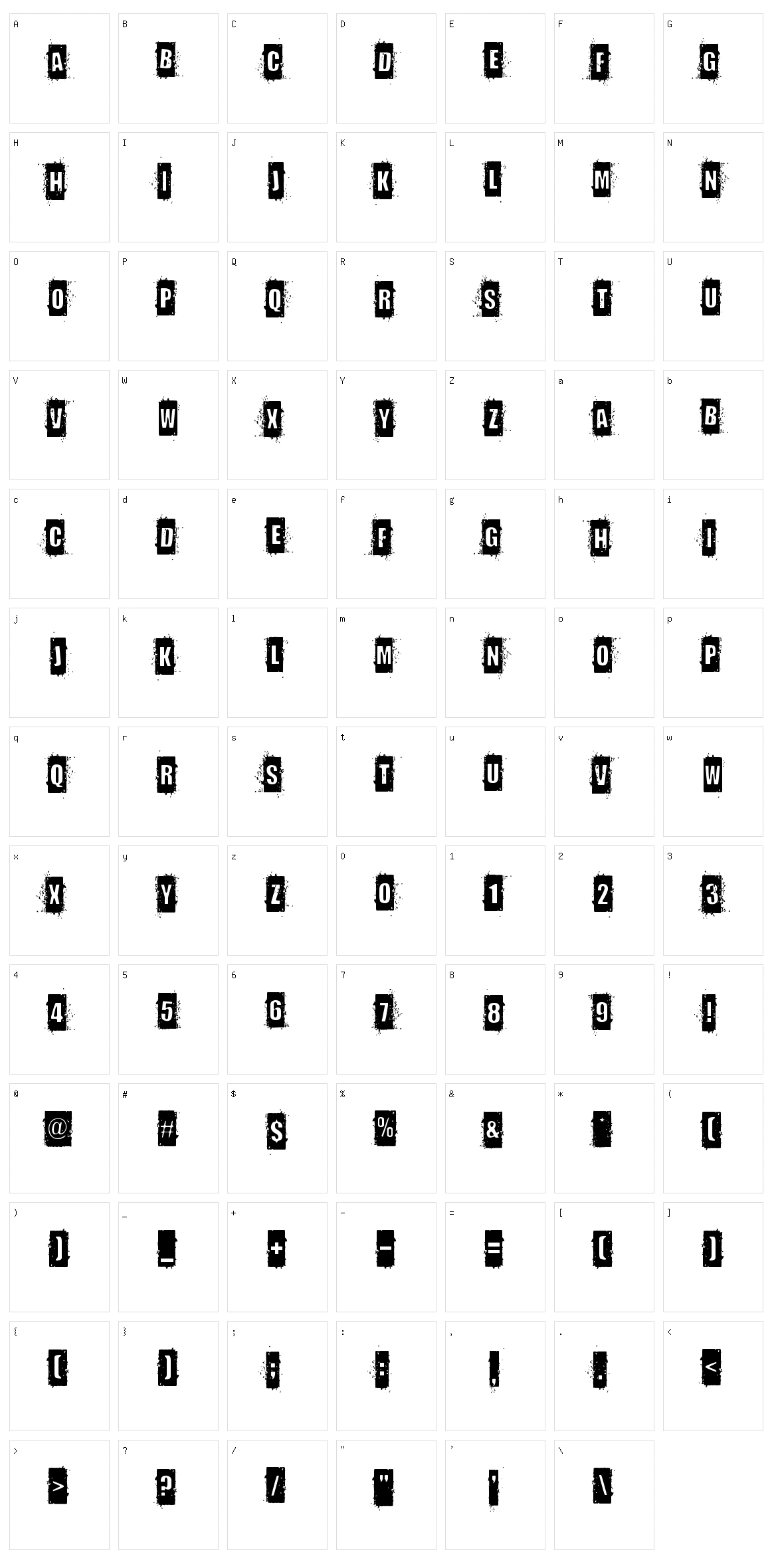
The free font Distort You a Lesson is carefully designed by Chequered Ink, showcasing a thoughtful balance of creativity and usability and falls under the Eroded font style. When you download the ZIP file, it contains only 33.71 KB of font files, making it lightweight and quick to download. Please review the license details below to understand permitted usage and distribution rights. If license information is not available, we recommend using this font for personal projects only or contacting the author directly for commercial usage permissions.